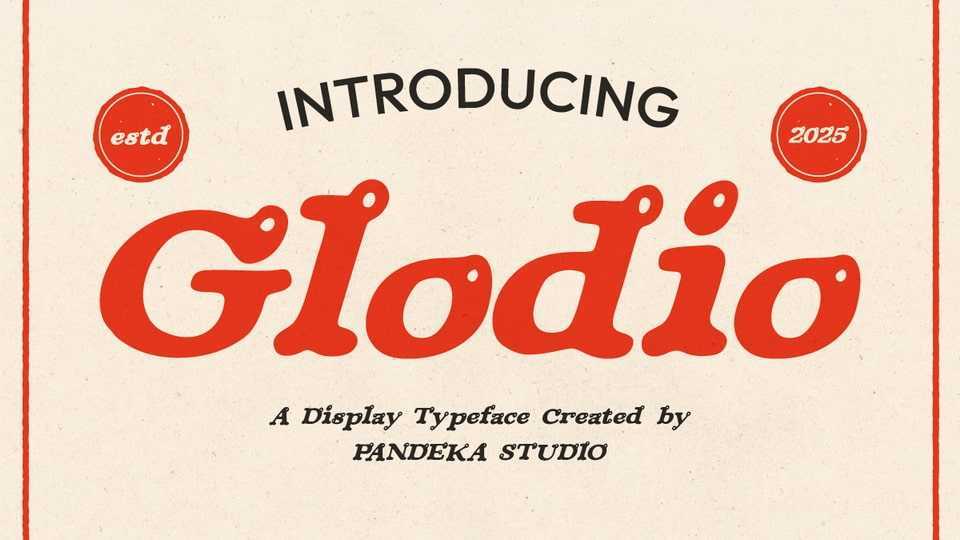
Download Glodio font, a display serif typeface with a vintage and retro style, bringing a classic and timeless feel with its bold and stylish design.